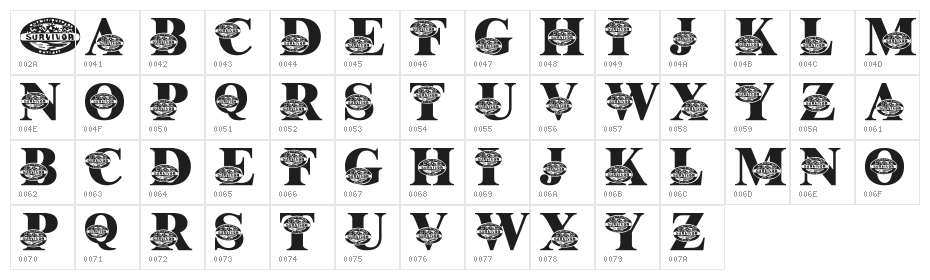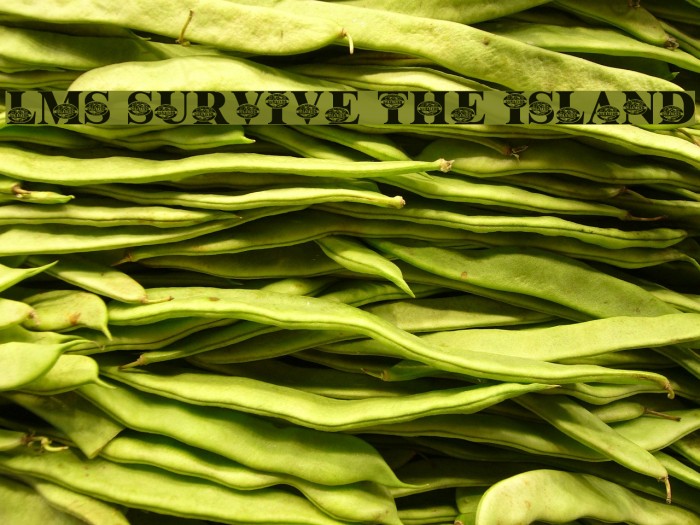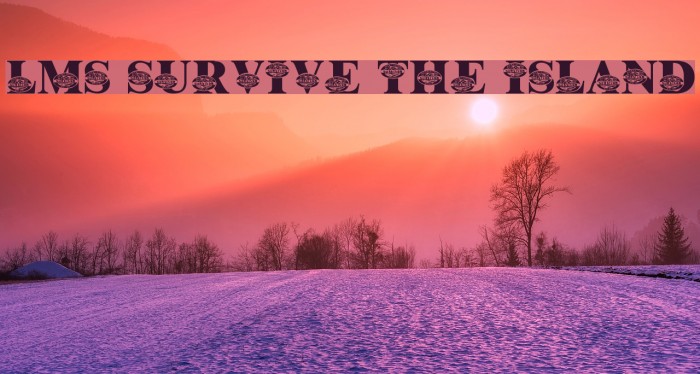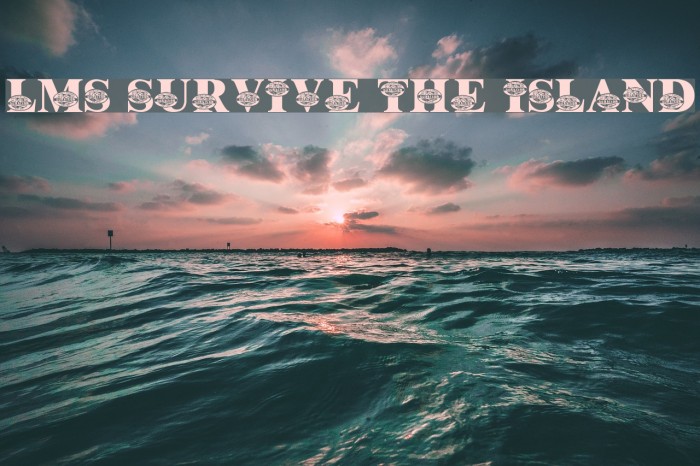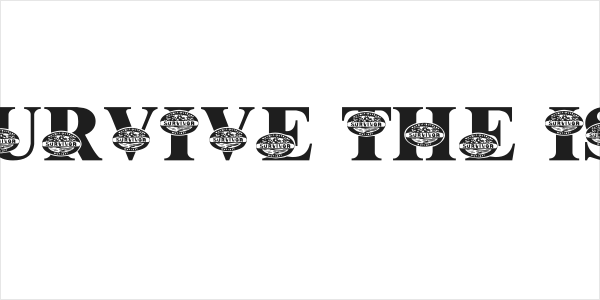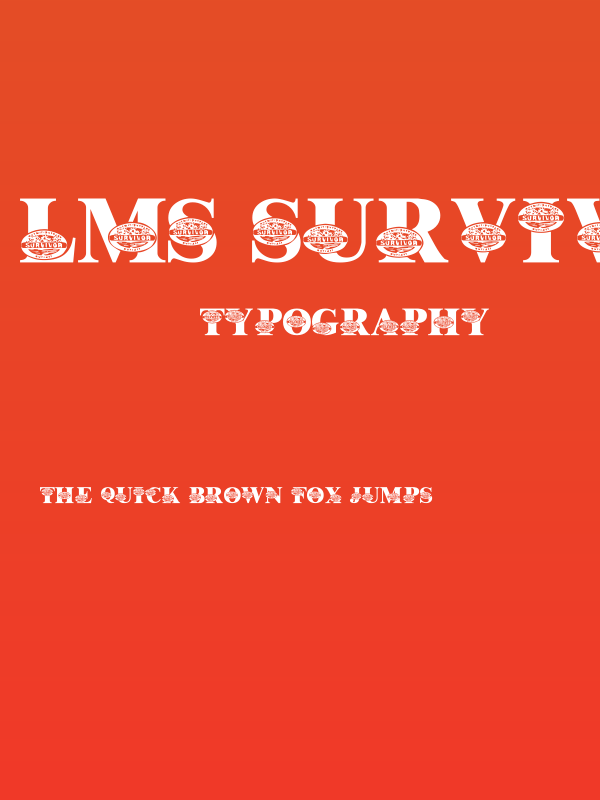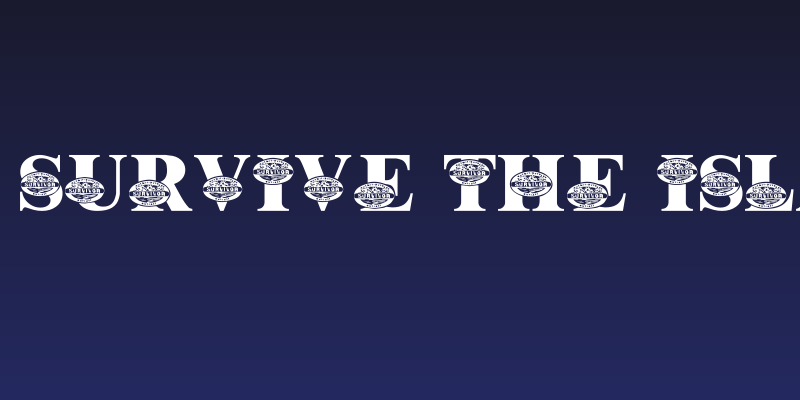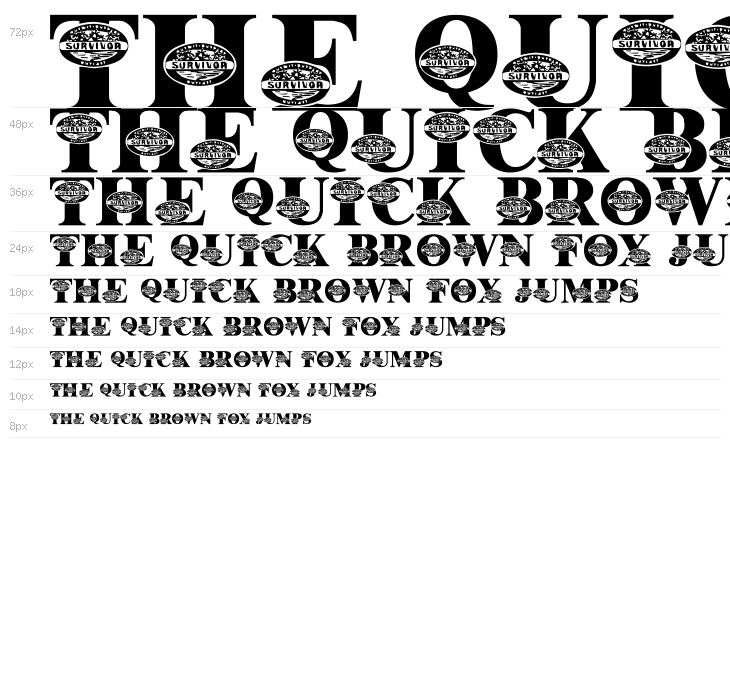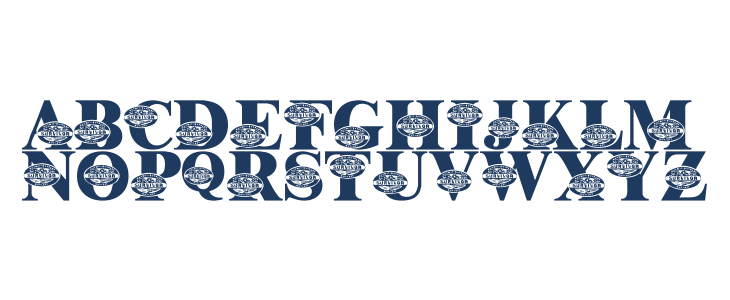
LMS Survive The Island Font
LMS Survive The Island Description
This font features bold, uppercase letters with a unique decorative style. Each character is adorned with an intricate design that incorporates elements reminiscent of tribal or island motifs, giving it a distinct and adventurous appearance. The font is highly stylized, with thick strokes and a strong presence, making it ideal for capturing attention. The letters are evenly spaced, ensuring readability despite the elaborate embellishments. This font is perfect for projects that require a bold statement and a touch of exotic flair.
| Proposed Projects | Ideal for adventure-themed posters, event branding, or merchandise related to survival or exploration themes. |